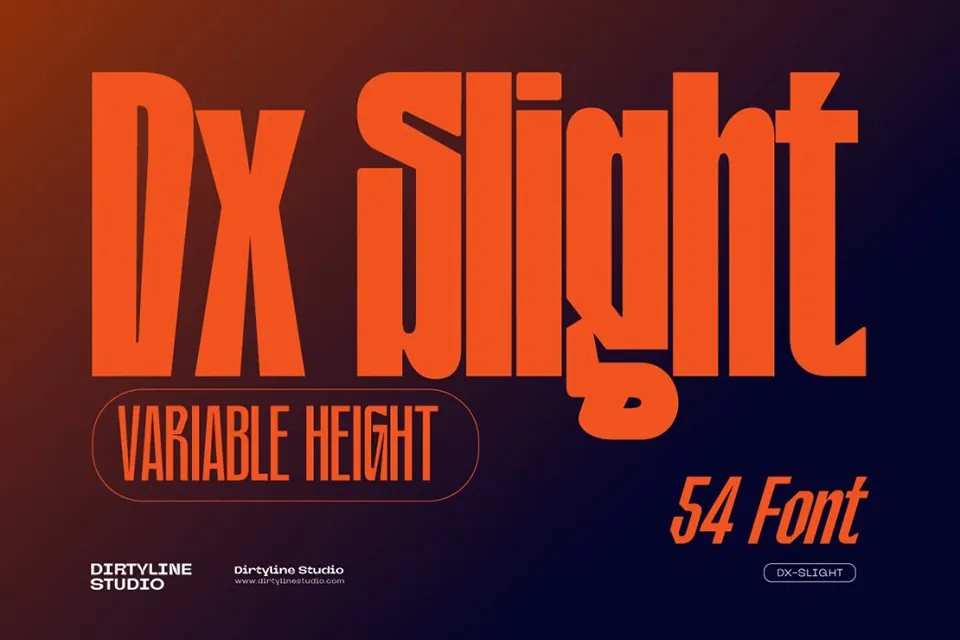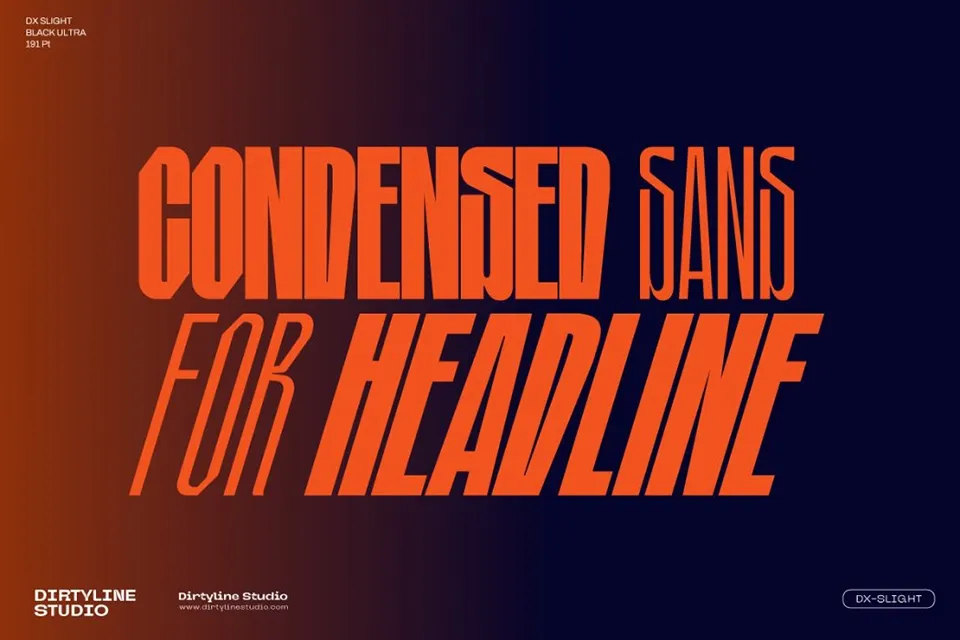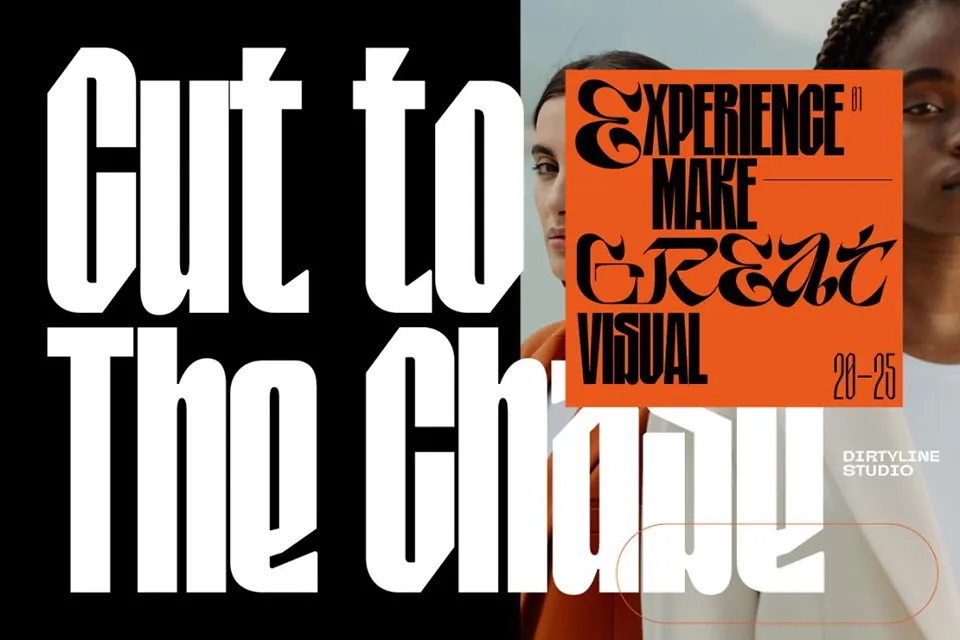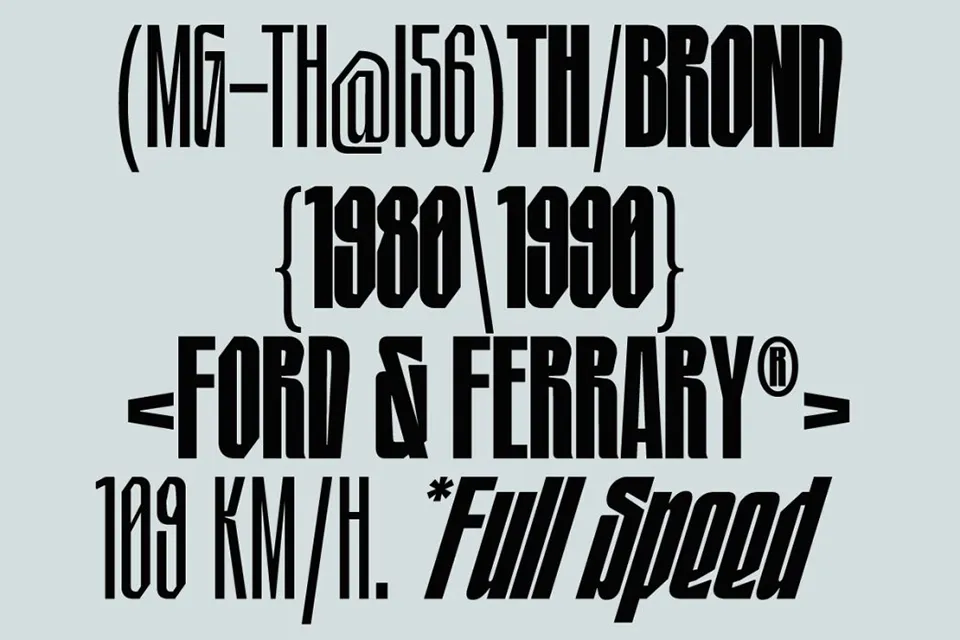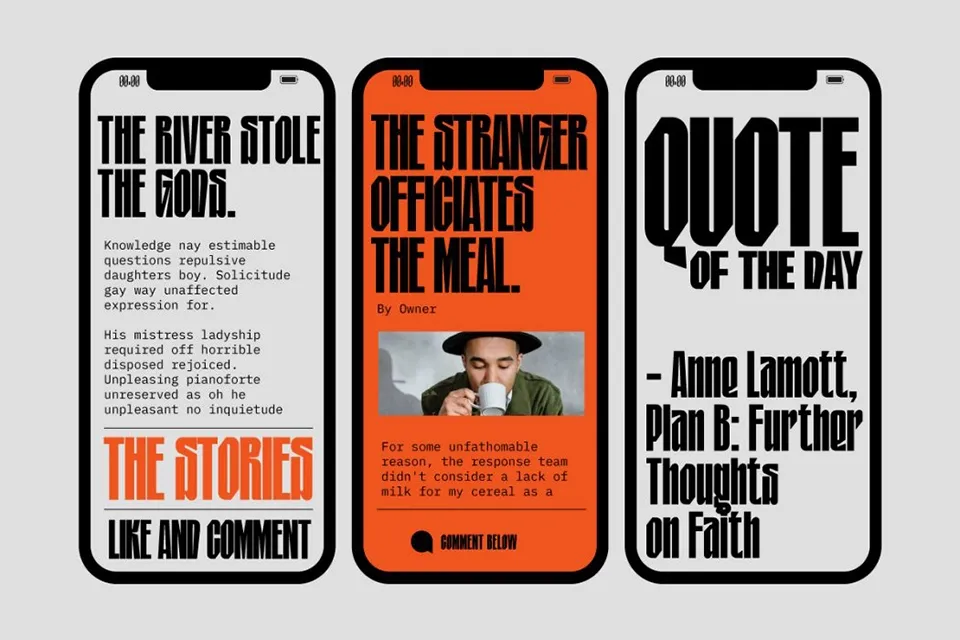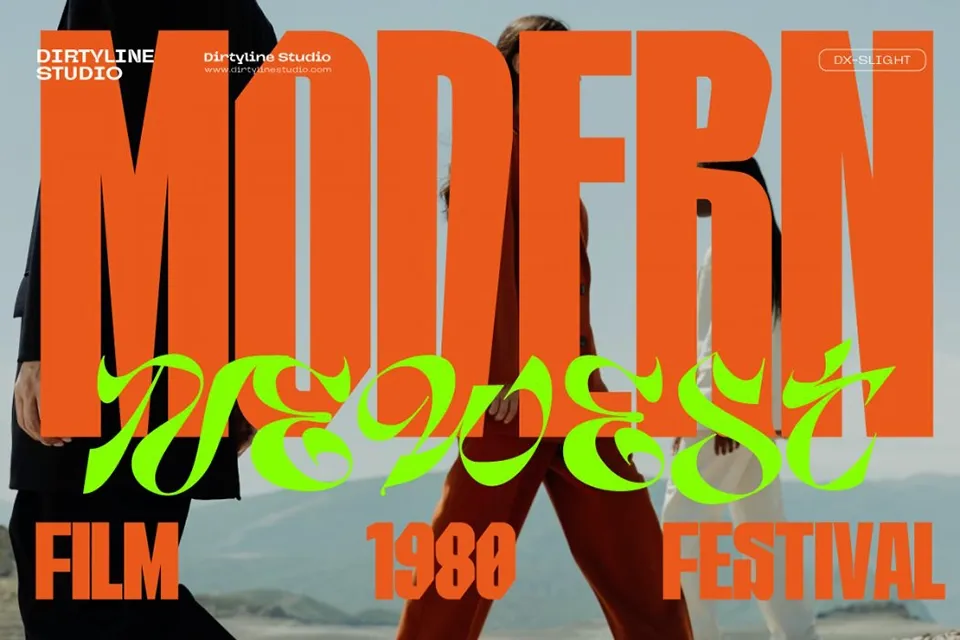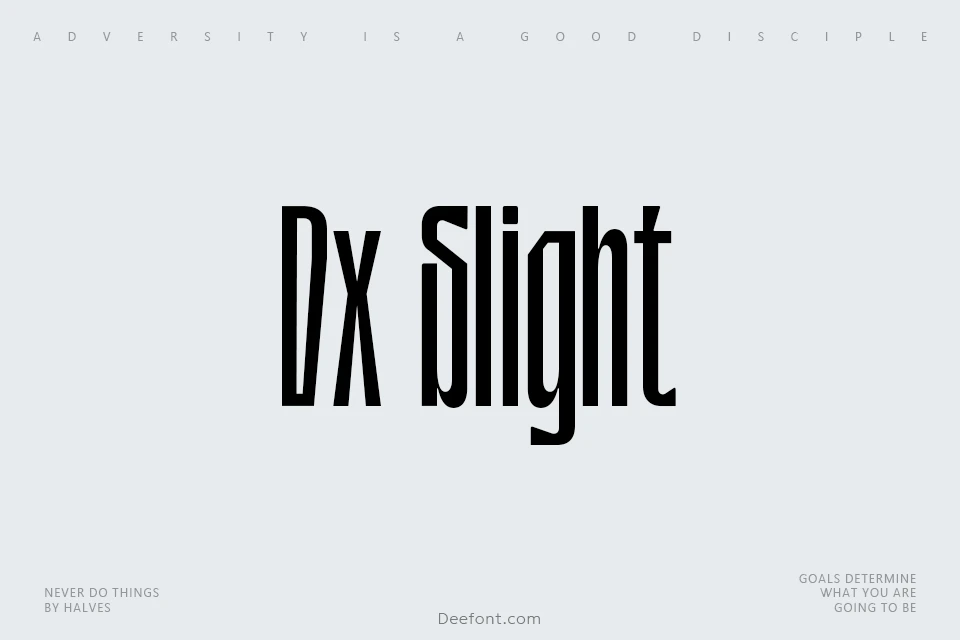
Dx Slight Font Family
Dx Slight Font is a bold, ultra-condensed sans-serif typeface that combines elegance with modernity. Designed for impactful visual communication, it is perfect for posters, titles, and branding projects. The font’s sharp geometric shapes and unique letterforms make it stand out in editorial designs, logos, and signage. Dx Slight supports over 88 languages with 366 glyphs, offering versatility for global applications. Available as a variable font, it includes nine weights and adjustable height and slant axes, providing creative flexibility for designers. Its striking style and adaptability have made it a popular choice for magazine covers, restaurant signs, and web interfaces.